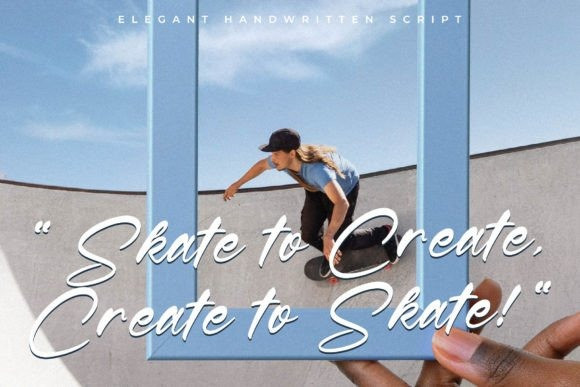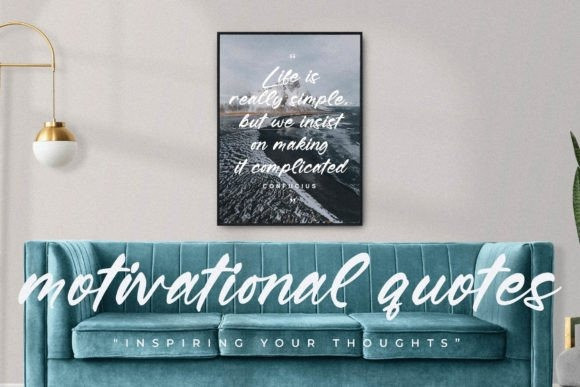
Heatffox Falsetto Font
Heatffox Falsetto Font is a graceful, modern calligraphic font. With its beautiful rhythm, this font will help you create gorgeous and classy compositions. Use it for branding projects, invitations, web graphics, cards, and many more!